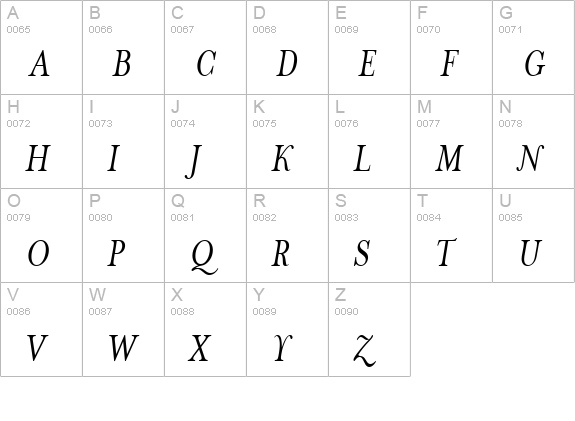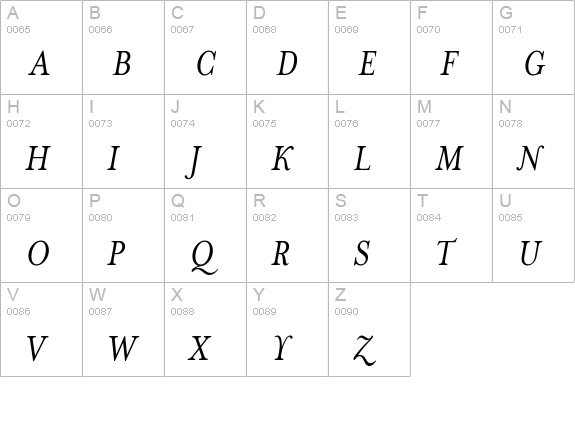
MrsEavesItalic Italic Font Details
MrsEavesItalic Italic is a distinctive, italic variant in the MrsEavesItalic typeface family \xE2\x80\x94 well suited to design and typography projects.
MrsEavesItalic Italic font is a beautifully elegant and sophisticated typeface that exudes timeless charm and grace. With its delicate slanted style, this font is perfect for adding a touch of class to any design project. The flowing lines and graceful curves of MrsEavesItalic Italic font create a sense of refinement and sophistication that is sure to impress. Whether used for invitations, branding, or editorial design, this font is a versatile choice that will elevate your work to the next level. Best of all, MrsEavesItalic Italic font is available for free download at FontsMarket.com. So you can add this stunning typeface to your collection without any cost. Don't miss out on the opportunity to enhance your projects with the beauty and elegance of MrsEavesItalic Italic font. Download it today and let your creativity soar!